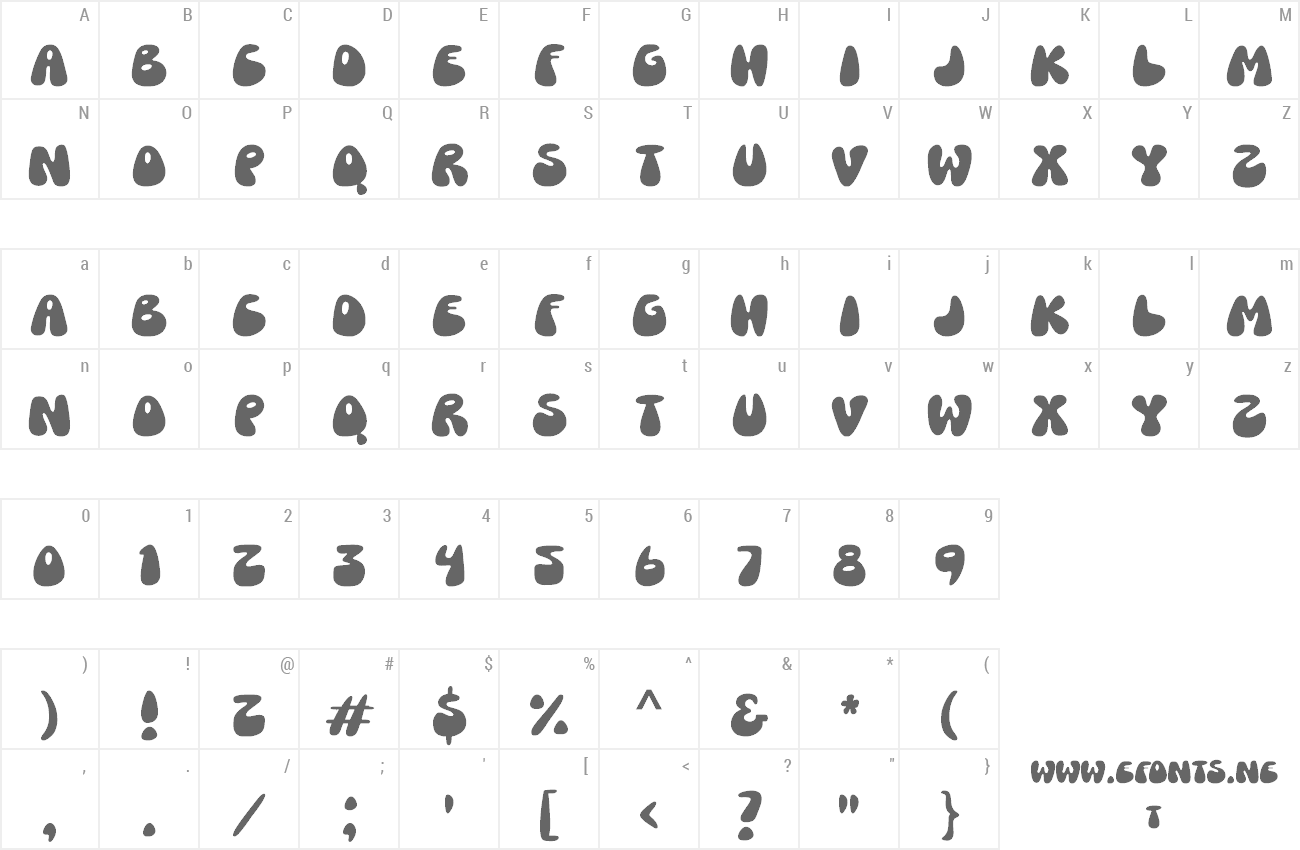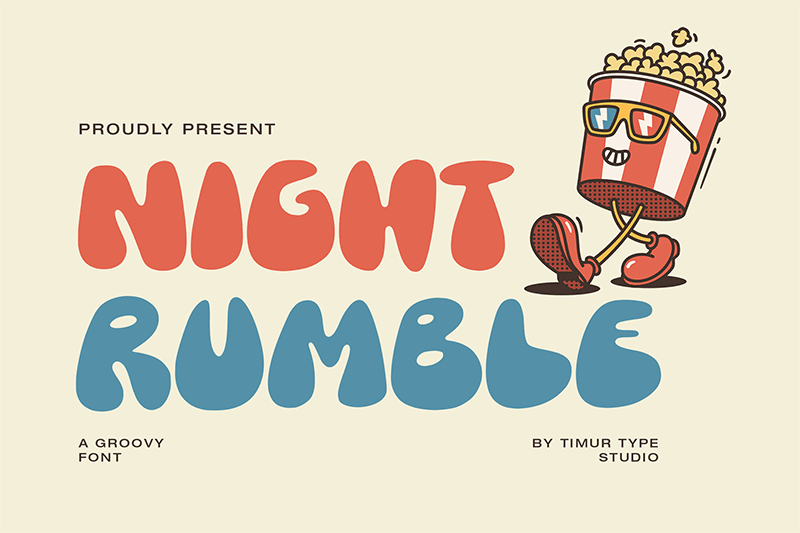
| Font name: | Night Rumble |
| Author: | Timur Type |
| Note by Timur Type | |
Introduced by Timur type Proudly Present�Night Rumble The fun font I created is reminiscent of balloons, with a unique twist. Each letter is carefully crafted to resemble the shape of a balloon, with rounded curves and a puffy appearance. What sets this font apart is its cartoon texture, which gives it a retro 90�s feel. The smooth edges and some gently conical edges of the letters add depth and character to the overall design. This font is perfect for projects that aim to convey a fun and unique feel while having a touch of handmade charm. It�s ideal for children�s book covers, greeting cards, party invitations, or any creative design that desires a fun and creative aesthetic. With its fun and other inspired shapes this font adds a distinct and interesting element to any visual composition. This font includes: OTF TTF WOFF -Full Set of standard alphabet and punctuation � Night Rumble�also multilingual support. By installing or using this font, you are agree to the Product Usage Agreement: � This demo font is ONLY for PERSONAL USE. NO COMMERCIAL USE ALLOWED! � Here is the link to purchase full version and commercial license: https://timurtype.com/product/night-rumble-font/ � For Corporate use you have to purchase Corporate license timurtype.studio@gmail.com More... |